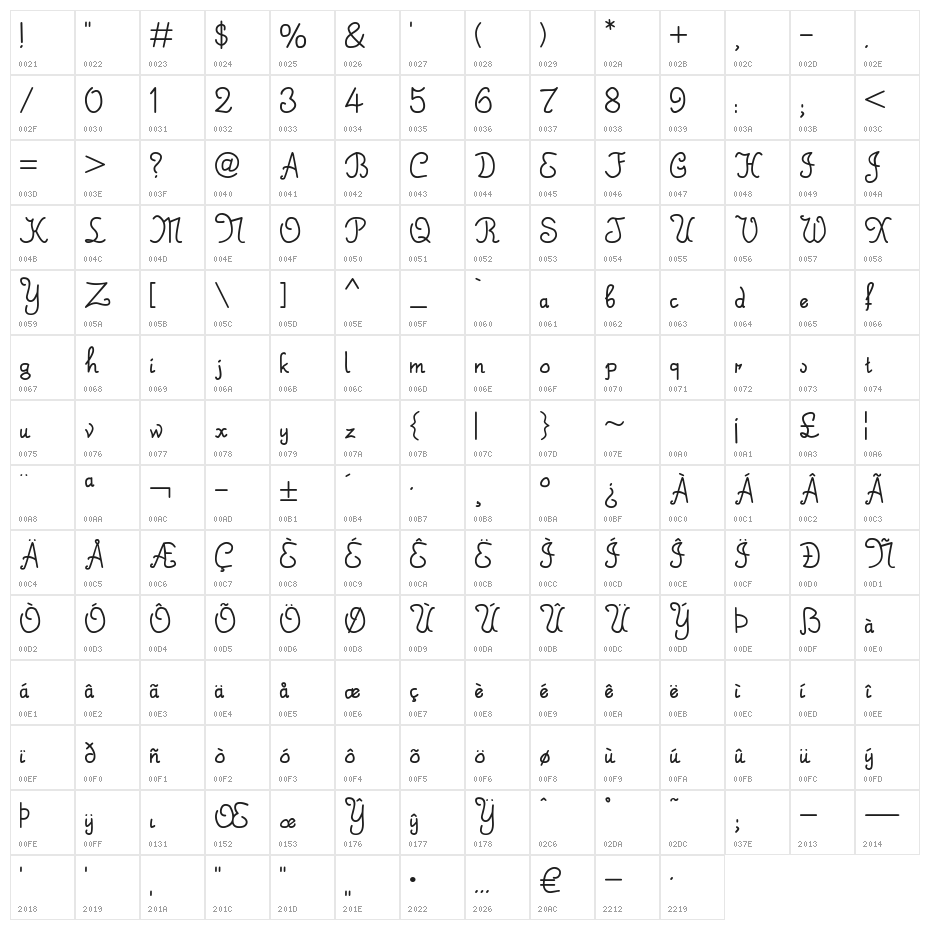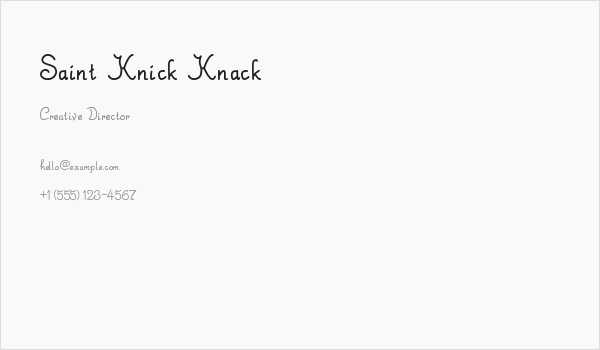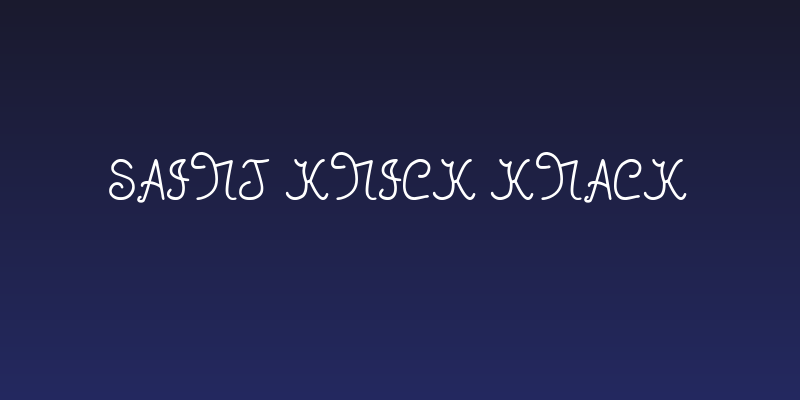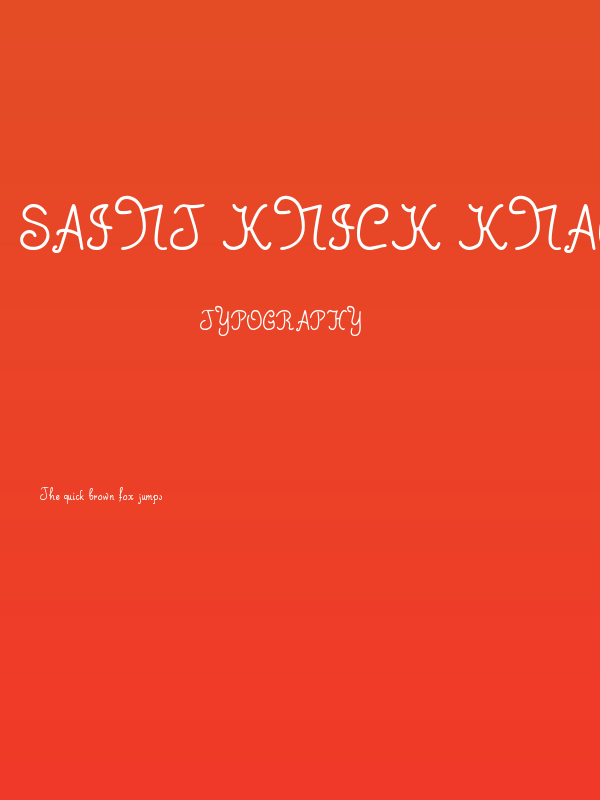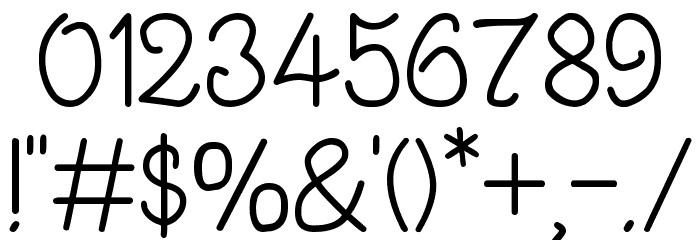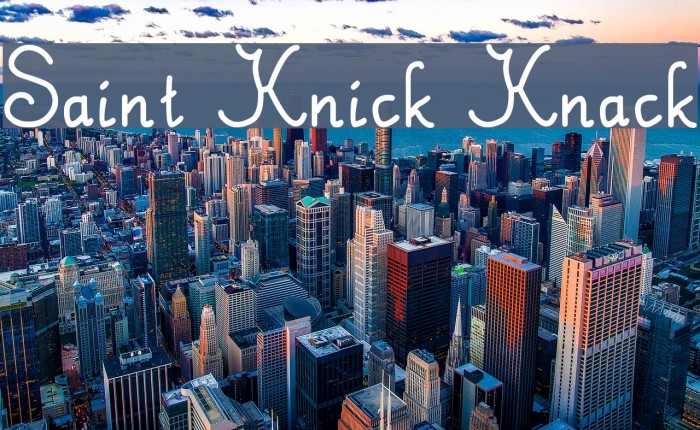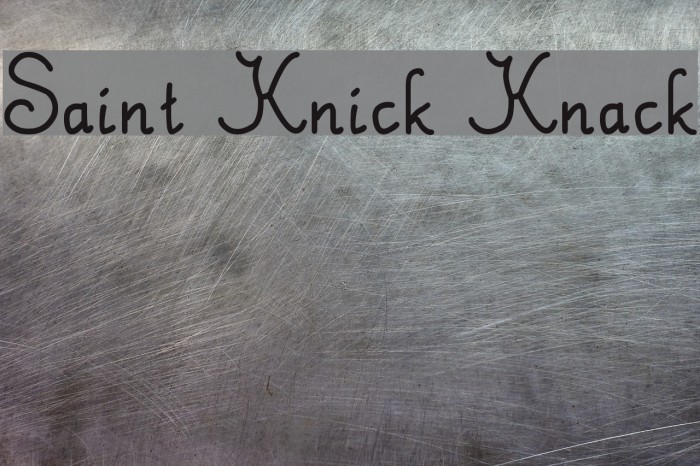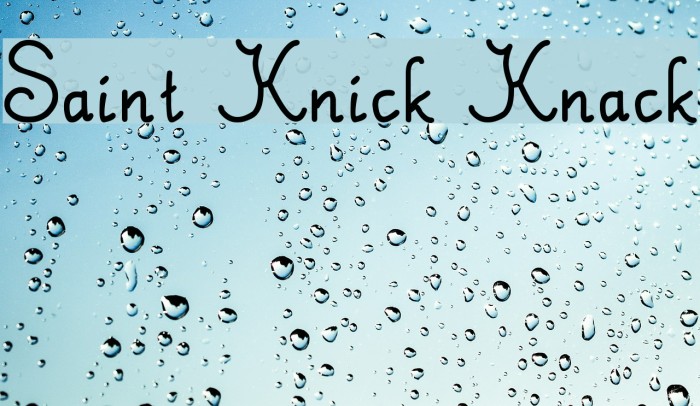
Saint Knick Knack Font
| Style général | Playful, Whimsical |
| Cas d'utilisation | Headlines, Logos, Creative projects |
| Projets proposés | Children's books, greeting cards, playful branding, creative invitations. |